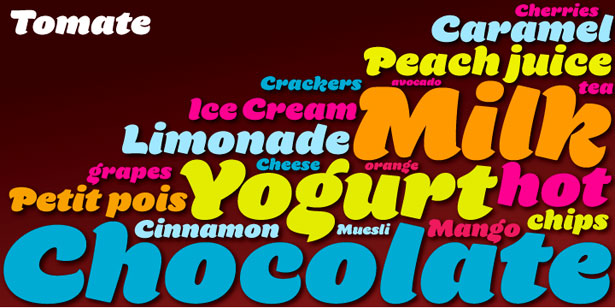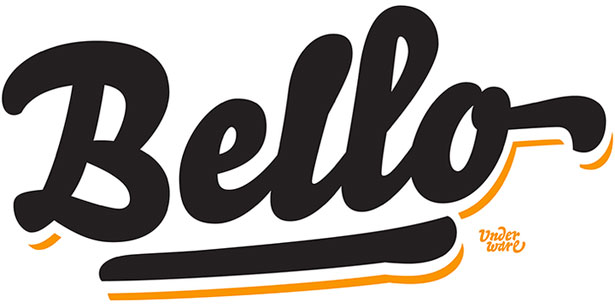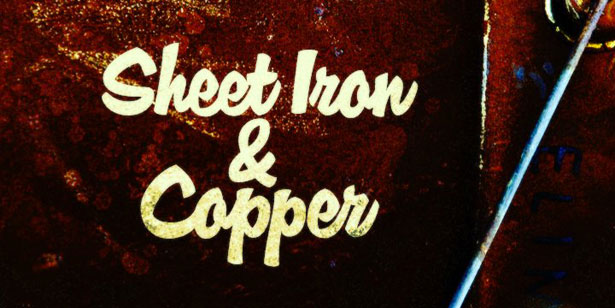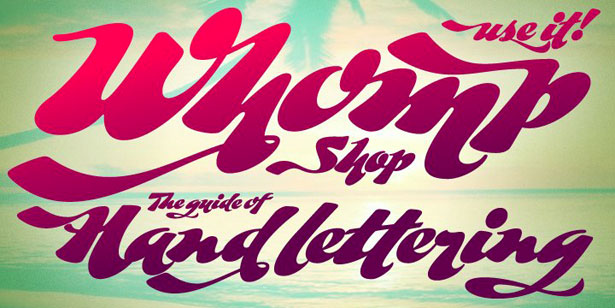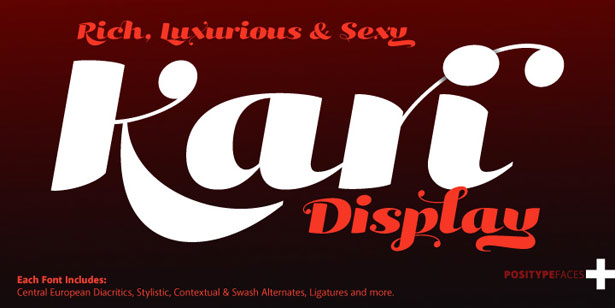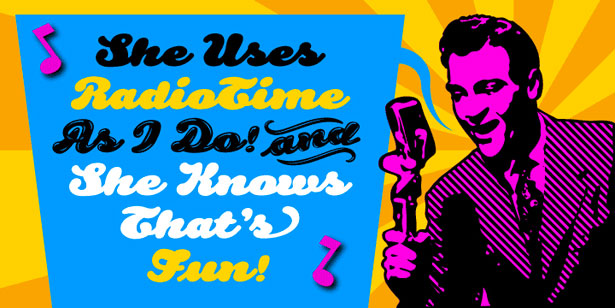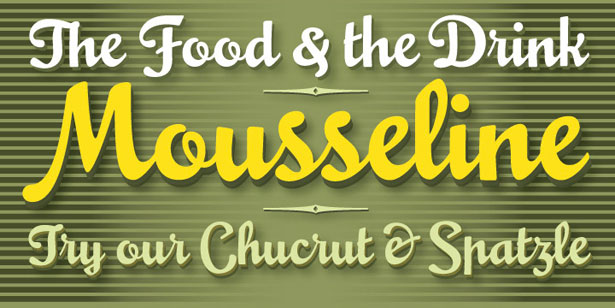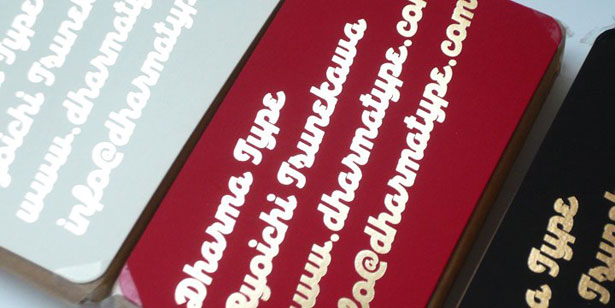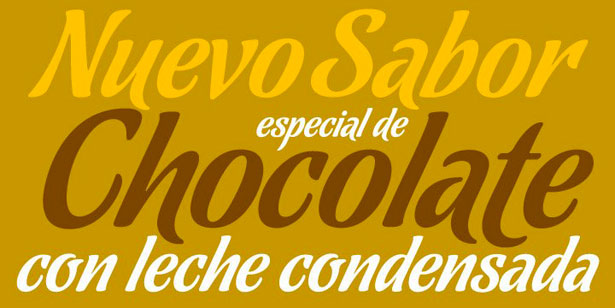
Brush fonts are hotter than ever and we are seeing them more often on professionally designed websites.
Thick, bold and beautiful… their relaxed, casual feeling and sexy curves make them a perfect fit for designers who want to break the mold and steer away from the typical serif and sans serif font choices.
Some of them crossover into the script font world, while retaining their thick lines and curves.
These types of fonts are also now widely used for logo designs and packaging as they easily bring added interest and creativity.
Here are 20 beautiful brush fonts that you may wish to use in your designs. Most of these fonts are not free, but may be worth the price for your project. Enjoy…
1. Tomate
2. Bello
3. Enamel Brush
4. Whomp
5. Kari
6. Radio Time
7. Mousse Script
8. HT Maison
9. Chocolate
10. Black Rose
11. Lil Rhino
12. Joyscript
13. Mrs Sheppards
14. Mikey Likes It Corpulent
15. Quiff
16. Sugar Pie
17. Calgary Script
18. Candy Script
19. Kewl Script
20. Semilla